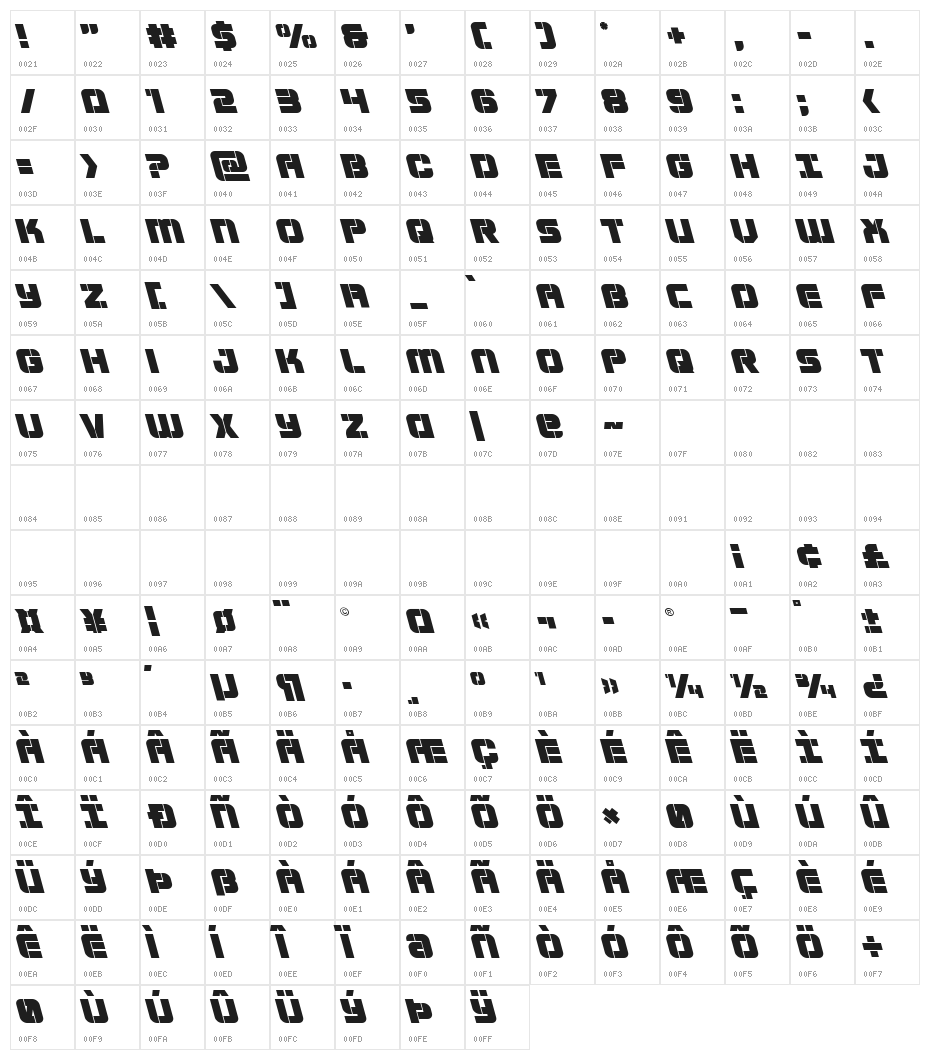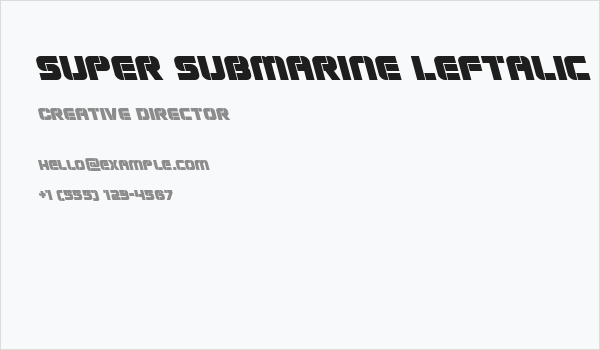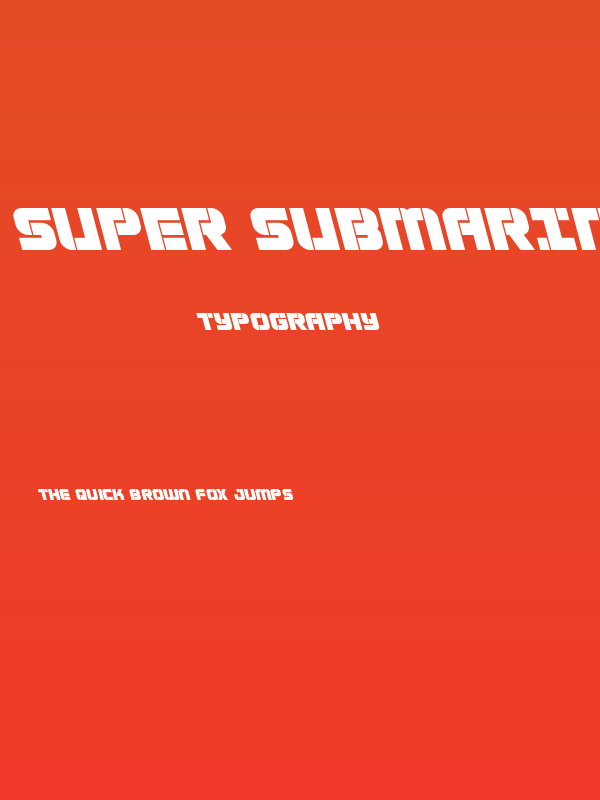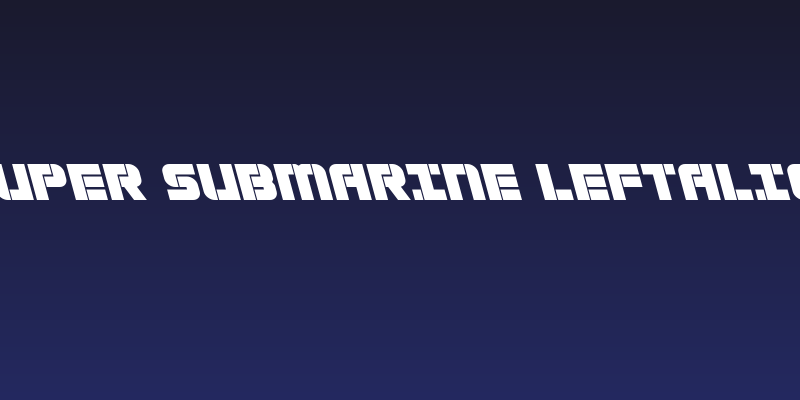
Super Submarine Leftalic Font
Super Submarine Leftalic Description
This font features a bold, futuristic design with a strong geometric influence. The characters are constructed with thick, block-like shapes that give a sense of solidity and strength. Each letter is slightly slanted, adding a dynamic and forward-moving feel. The font has a consistent stroke weight throughout, contributing to its bold appearance. The spacing between characters is tight, which enhances the compact and cohesive look. This style is ideal for making a strong visual impact, suitable for modern and tech-oriented designs.
| Proposed Projects | Ideal for technology branding, sci-fi posters, video game titles, and modern advertising. |